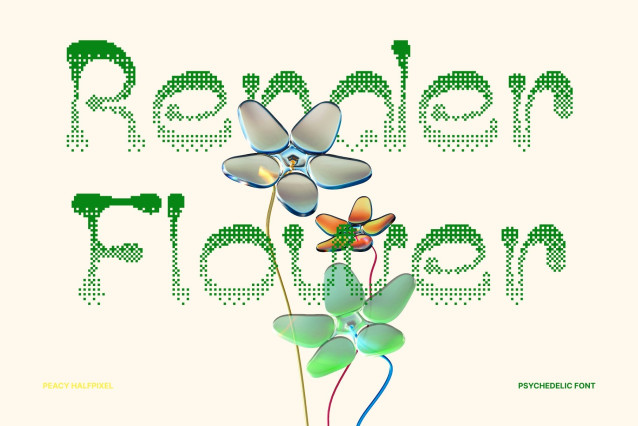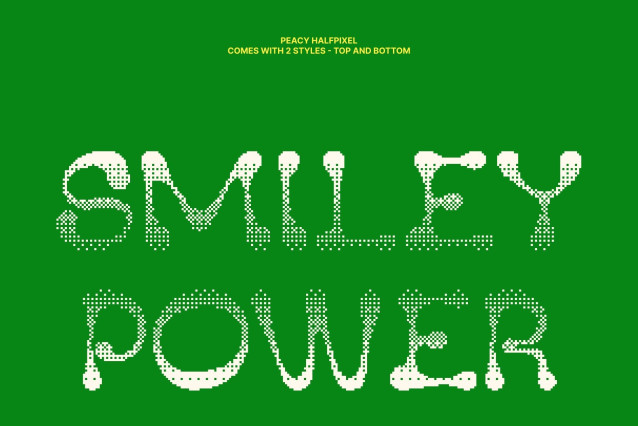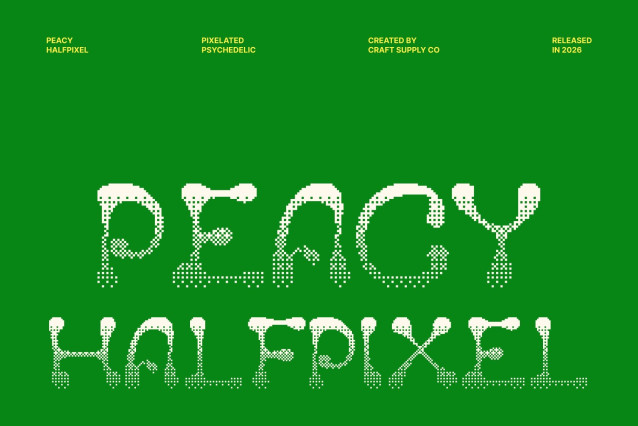
Peacy Halfpixel – Psychedelic Display Font
This is a lively psychedelic display font that radiates joy, energy, and creativity. Its flowing shapes and expressive letterforms create a dynamic visual rhythm, giving every word a fun and cheerful personality.
Reggae-Inspired Flow and Freedom
Infused with reggae-inspired vibes, this font captures a sense of freedom, positivity, and relaxed movement. Its wavy curves and organic forms echo rhythmic music patterns, bringing a laid-back yet energetic feel to any design.